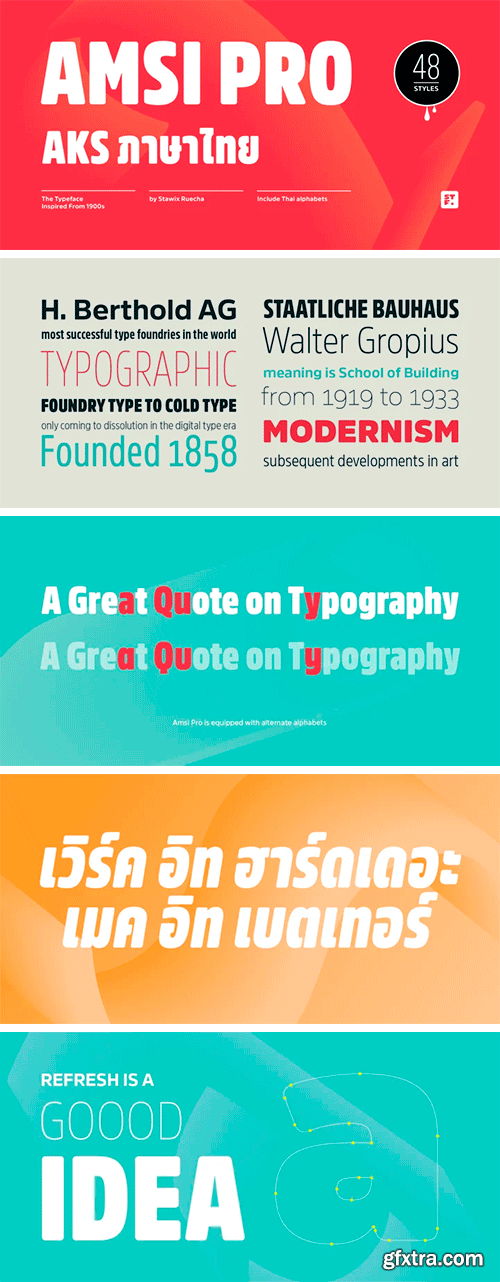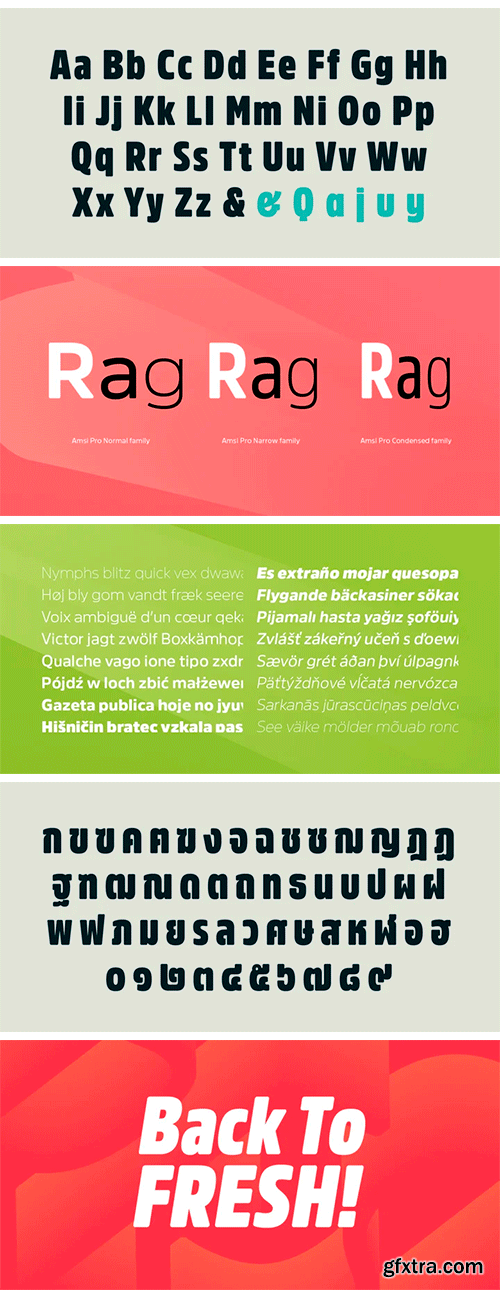
Amsi has been designed to equipped with three different widths; Normal, Narrow and Condensed, addition to expanding weights to support various usabilities ranging from Thin, XLight, Light, Regular, SemiBold, Bold, Black and Heavy. Which makes Amsi along with a numerous features support the creativities of the designer from the Font Menu.